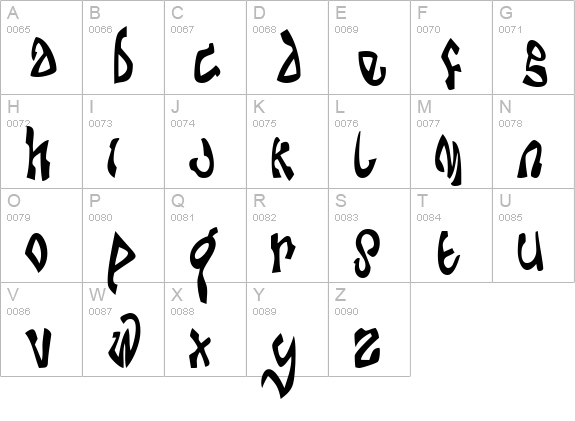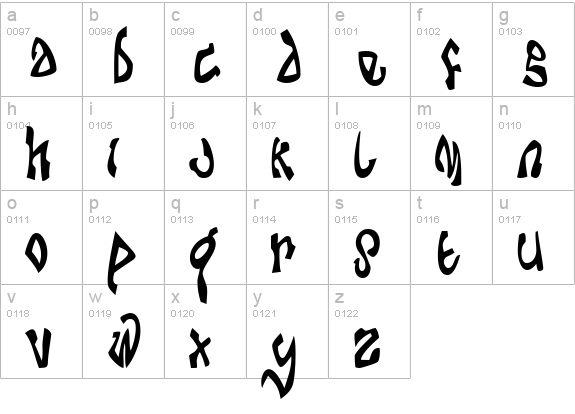
Da Bomb font is an explosive and dynamic typeface that will make your designs pop with its bold and edgy style. With its sharp angles and powerful letterforms, this font is perfect for creating attention-grabbing headlines, logos, and posters. Da Bomb font is not only visually striking, but it also embodies a sense of energy and excitement that will elevate your designs to new heights. Its unique combination of thick and thin lines creates a sense of depth and dimension, adding a modern and futuristic touch to any project. One of the best things about Da Bomb font is that it is free to download at FontsMarket.com. This means that you can unleash its explosive power in your designs without breaking the bank. Whether you are a professional designer or just someone who loves to get creative, this font is accessible to all. So, why wait? Download Da Bomb font today and let your designs explode with style and impact. Whether you're designing a logo for a cutting-edge tech company, creating eye-catching posters, or adding a bold touch to your social media graphics, this font will surely make a bombastic statement. Get ready to make an impression with Da Bomb font, now freely available at FontsMarket.com.